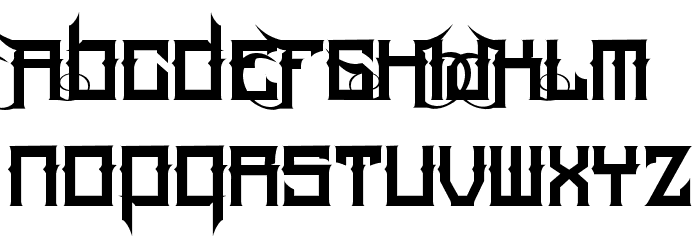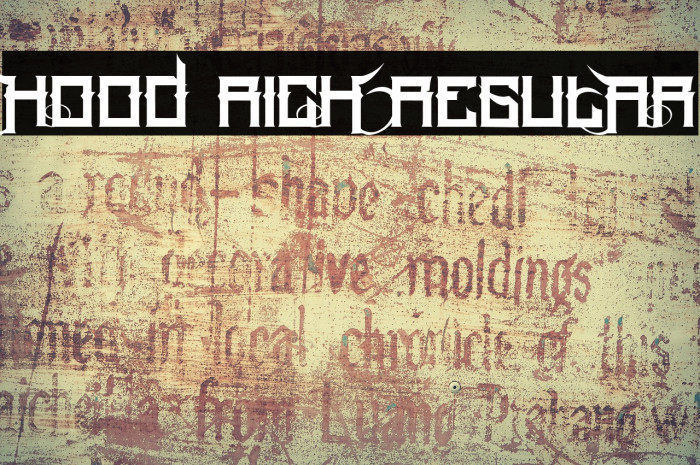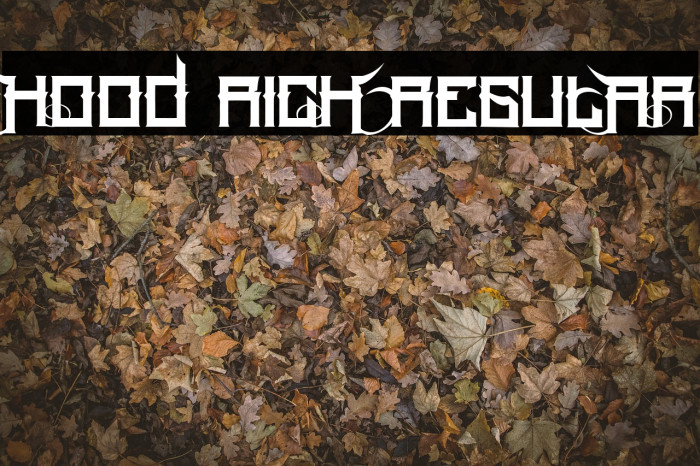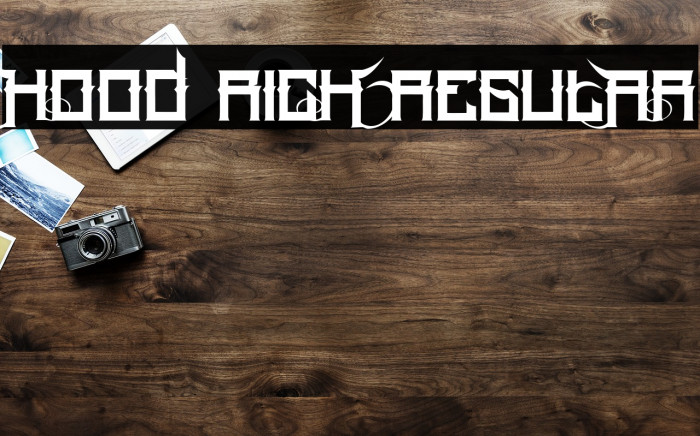
Hood Rich Regular Font
This font features a bold, angular design with sharp edges and a distinct geometric style. The characters are crafted with a high level of detail, incorporating pointed serifs and intricate line work that gives it a unique, edgy appearance. The uppercase letters are particularly striking, with a strong presence and a sense of movement. The lowercase letters maintain the same angular aesthetic, ensuring consistency across the typeface. The numbers and special characters are equally bold and stylized, making them stand out. This font is ideal for projects that require a modern, rebellious look, such as music album covers, streetwear branding, or urban-themed posters.
A bold, angular font with sharp edges and a geometric style.
- Proposed Projects: Ideal for music album covers, streetwear branding, or urban-themed posters.
- Overall Style: Modern, Edgy
- Use Case: Logos, Headlines